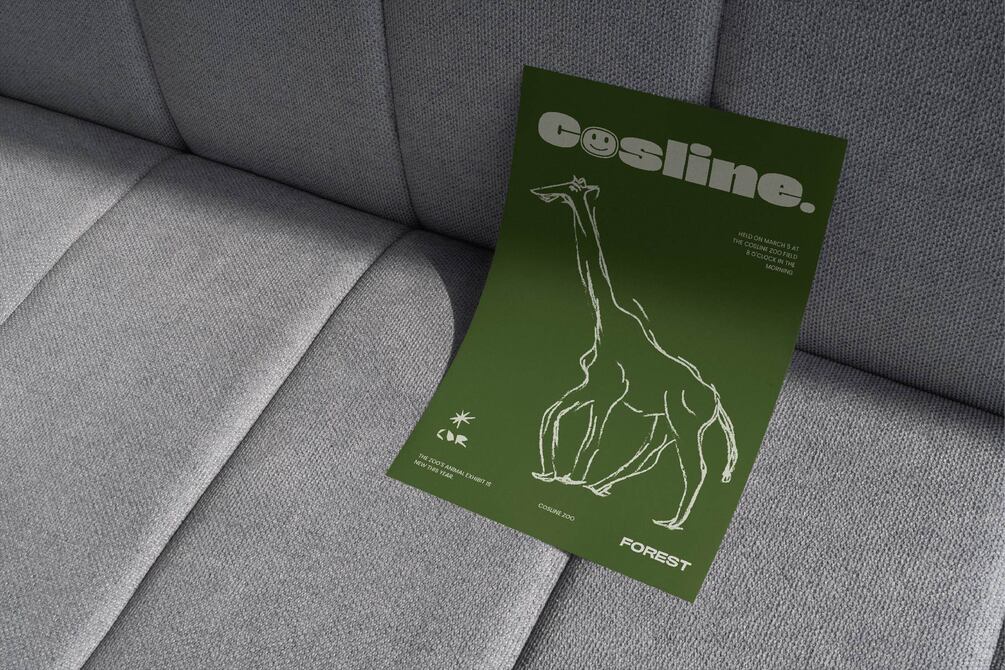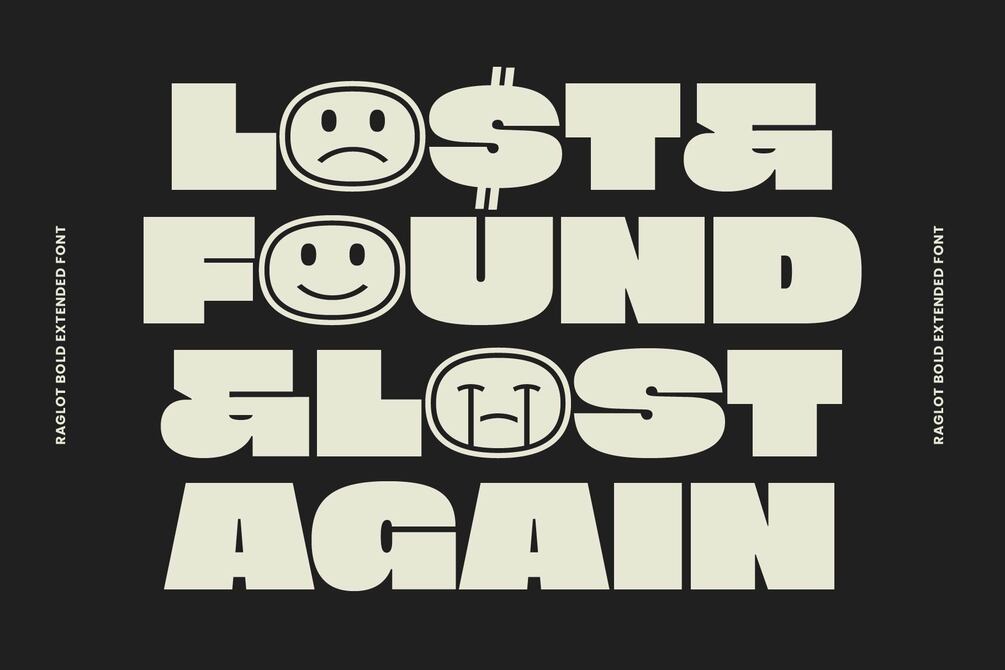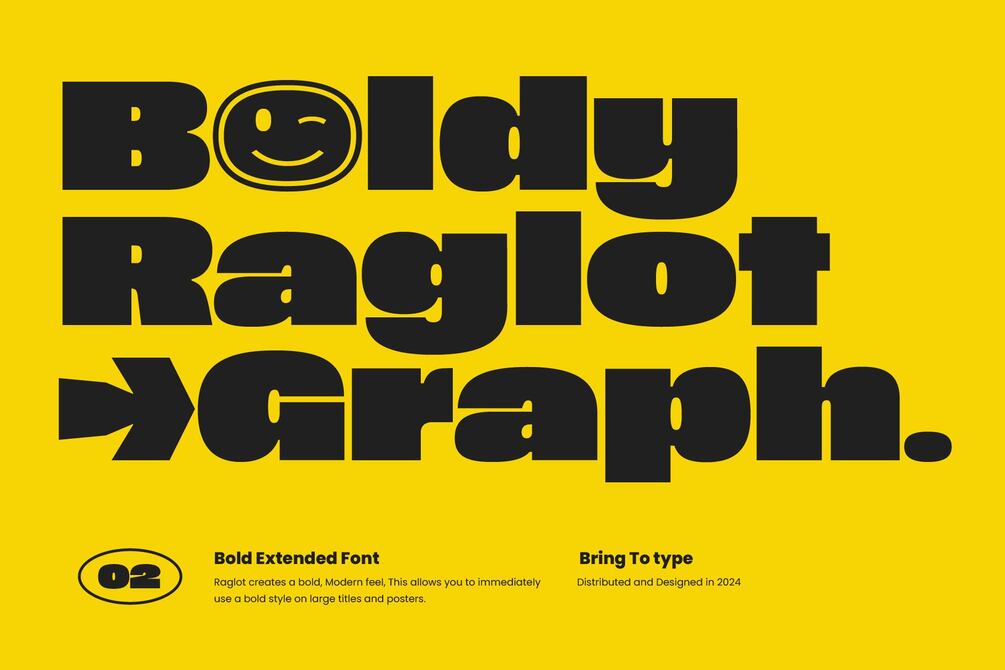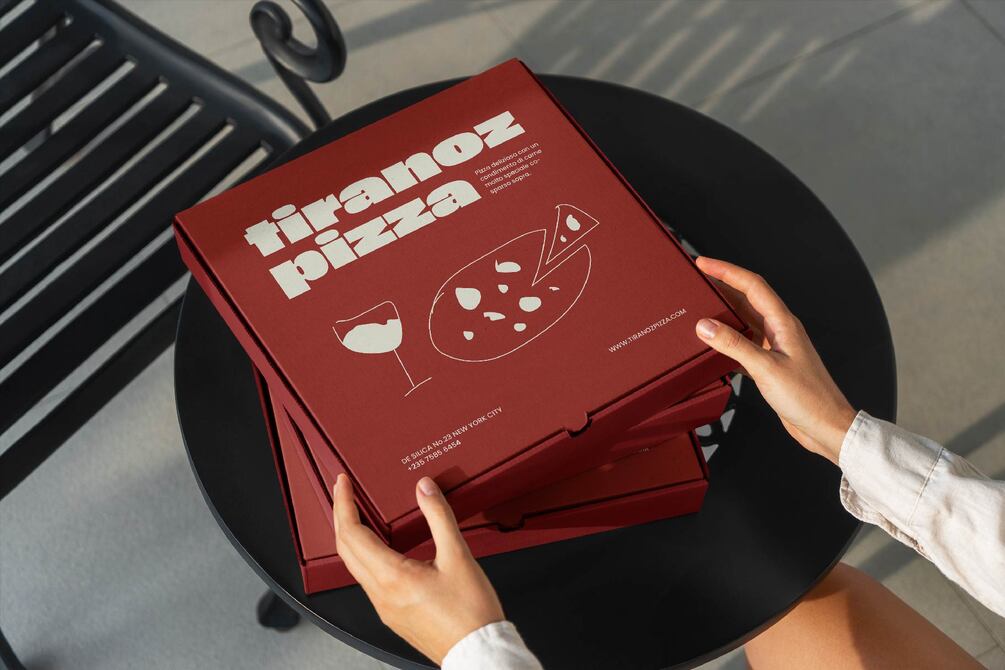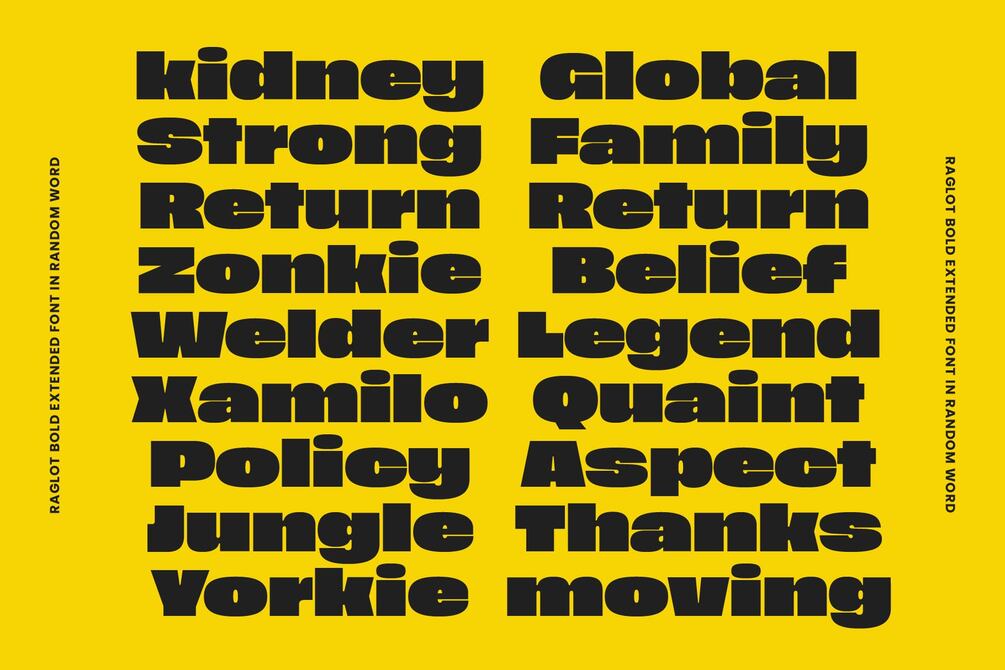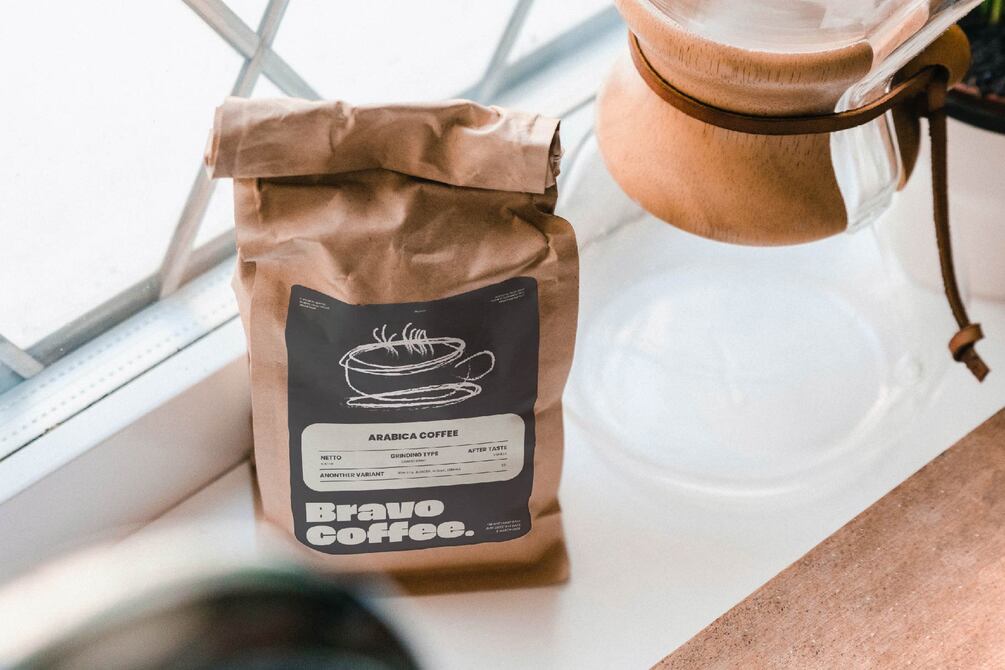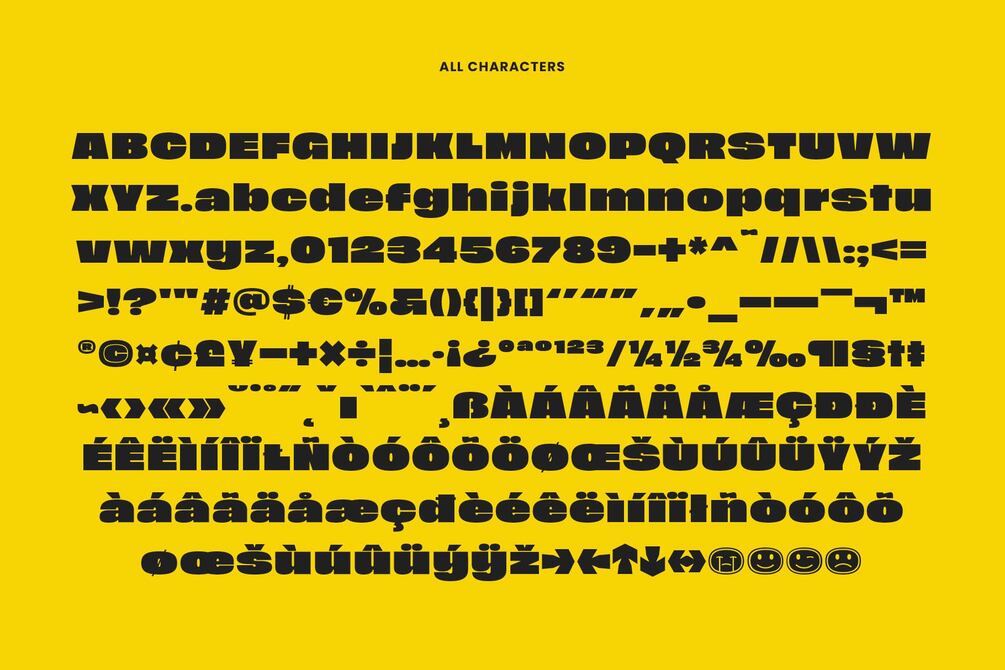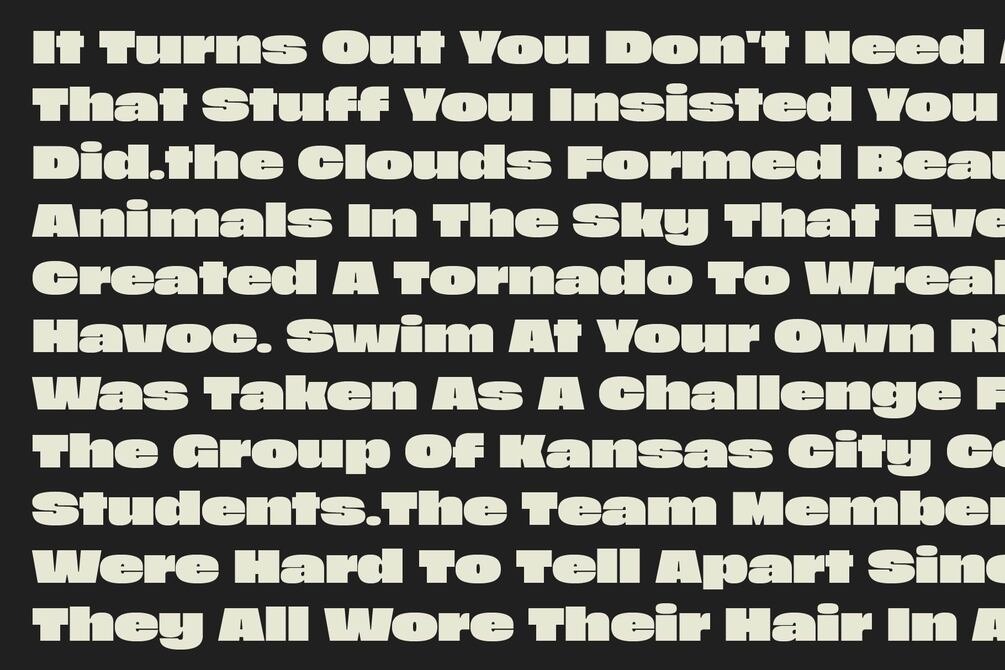
Raglot - Bold Extended Font
Raglot creates a bold, Modern feel, This allows you to immediately use a bold style on large titles and posters.
Raglot Font Features:
• Uppercase and Lowercase
• Multilingual Support
• Symbols